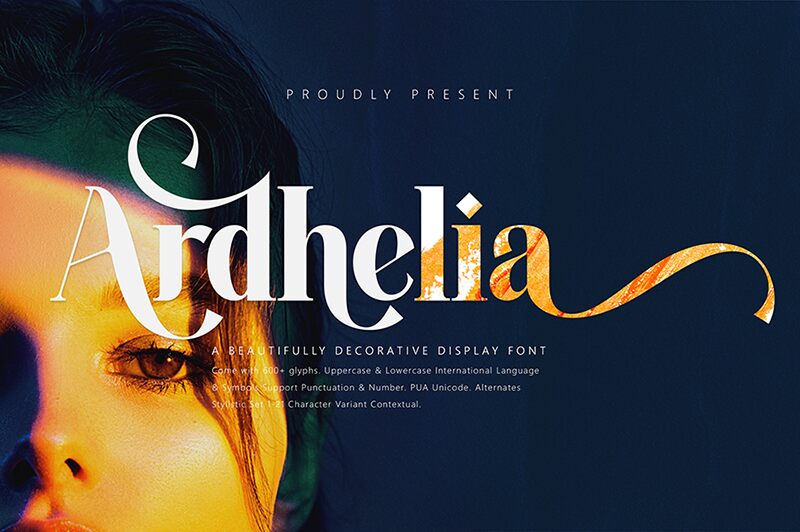
Ardhelia
Ardhelia font is an elegant serif font from Jamaluddin with high contrast and a classic appearance. Stylish, sophisticated, timeless – all words associated with this beautiful resource. Large sizes are recommended to showcase its impressive appearance, size at which the details of the letters will catch the eyes of any observer.
Free for use in commercial projects, Ardhelia is great for posters, flyers, magazines, book covers (fashion & lifestyle genres), perfumes and boutique branding as well as labels.